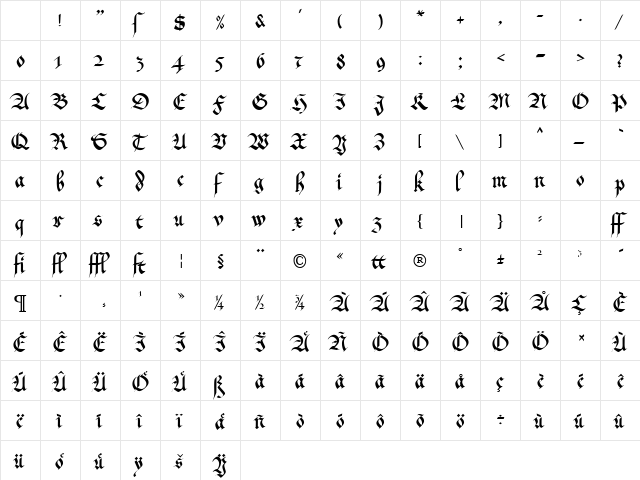
MA GKursiv2 DB is a composed and adaptable typeface that performs quietly and consistently across a wide range of design contexts. The slanted form adds forward momentum and visual energy.